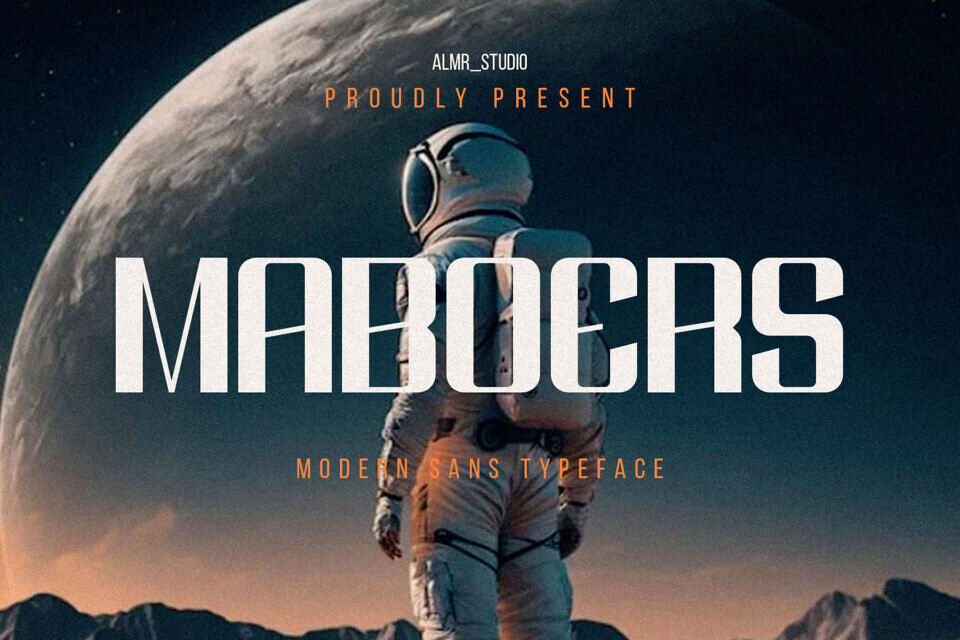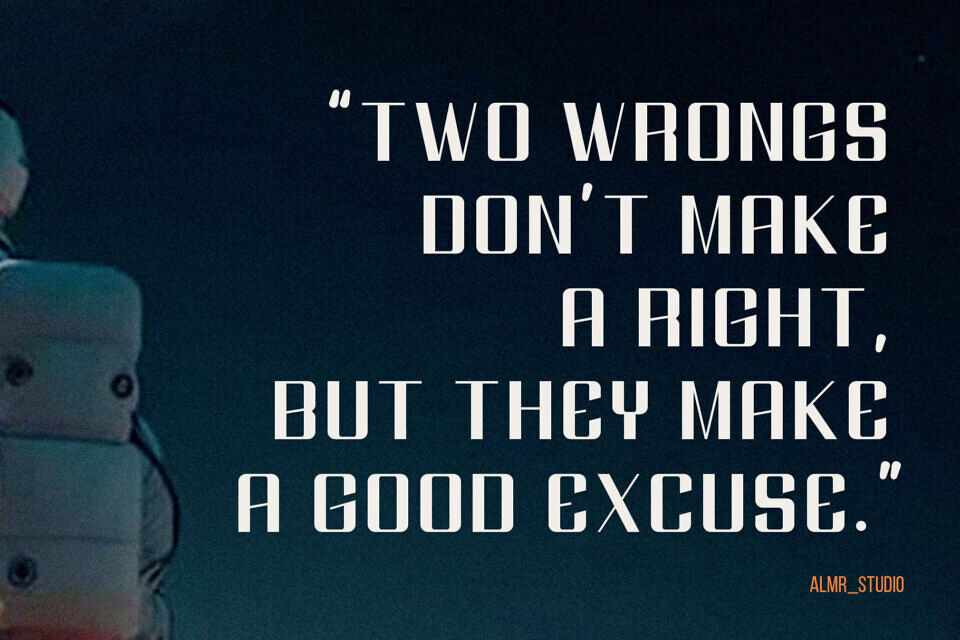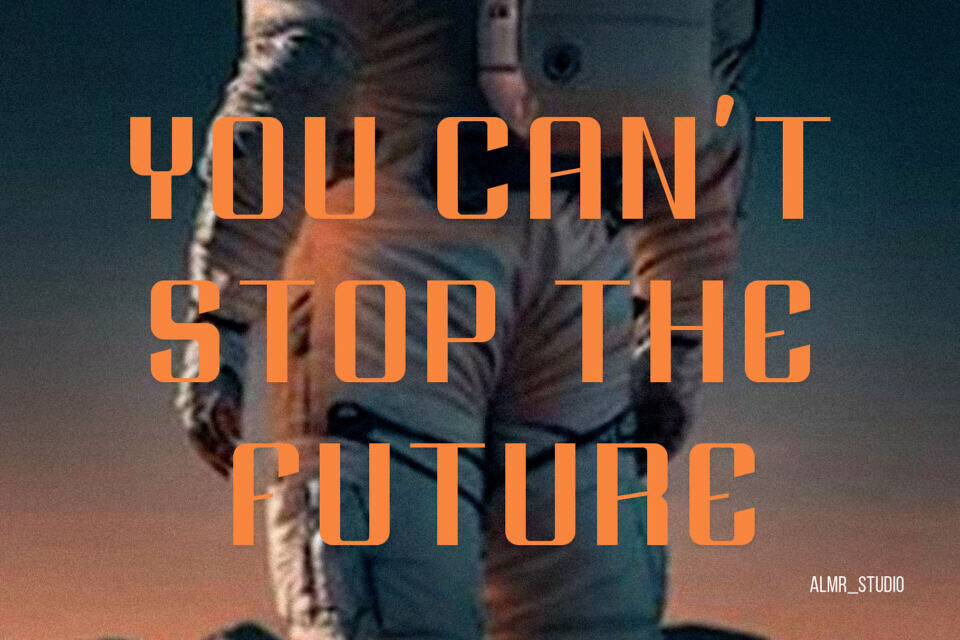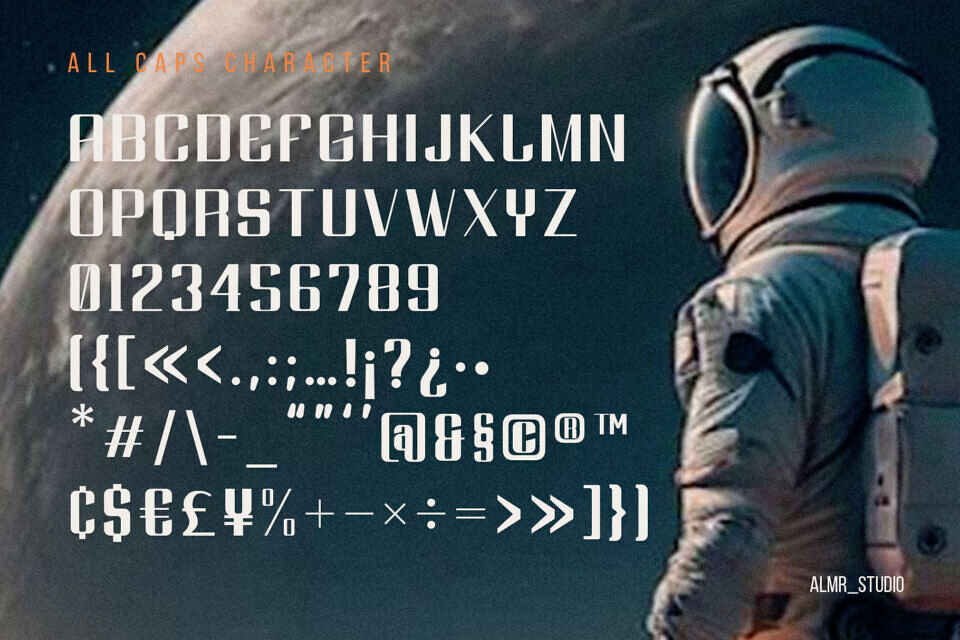
Introducing Maboers, an elegant modern sans crafted by Almeera Studio. Maboers is a modern, elegant and simple font, best used as a display for headings, logos, branding, magazines, product packaging and invitations.